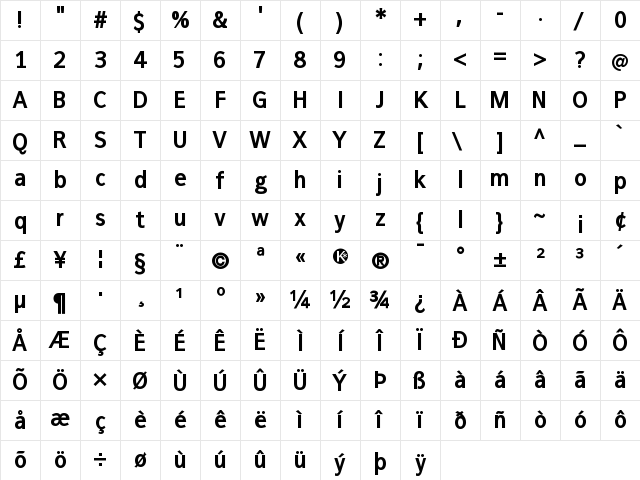
FrancophilSans Bold Free Font
FrancophilSans Bold
FrancophilSans Bold Family
Design Context for FrancophilSans
FrancophilSans is a composed and adaptable typeface that performs quietly and consistently across a wide range of design contexts. Its bold stroke weight gives it real presence on the page.
Pro Tip: Use FrancophilSans in both headline and body roles to test its range before committing to a single application.